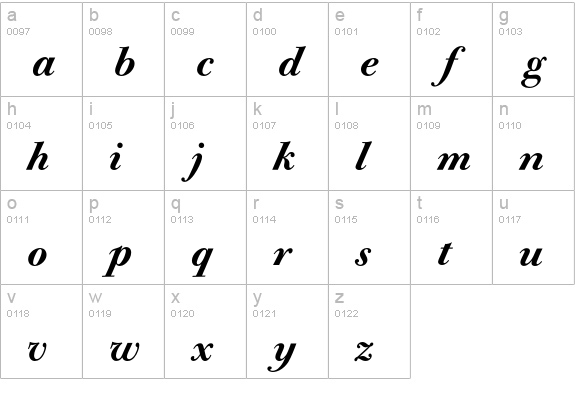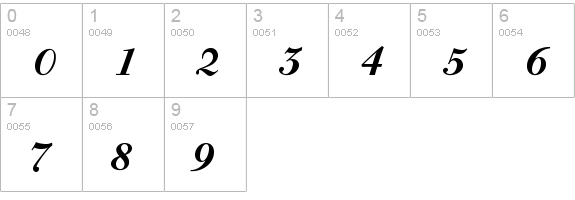
Bodoni Old Face Medium Italic Font Details
Bodoni Old Face Medium Italic is a balanced, medium-weight, italic variant in the Bodoni typeface family \xE2\x80\x94 well suited to sub-headlines, navigation, and balanced editorial work.
Bodoni Old Face Medium Italic is a classic and elegant font that exudes sophistication and charm. With its slanted, graceful strokes and timeless design, this font is perfect for adding a touch of sophistication to any project. The medium weight strikes the perfect balance between being bold and delicate, making it versatile for a variety of design applications. What makes Bodoni Old Face Medium Italic even more appealing is that it is available for free download at FontsMarket.com. This generous offer allows designers and creatives to access this beautiful font without any cost, making it a valuable addition to any font library. Whether you're designing a wedding invitation, creating a logo, or crafting a poster, Bodoni Old Face Medium Italic is sure to elevate your project with its refined aesthetic and effortless style. Download it today and let your creativity shine with this exquisite typeface.